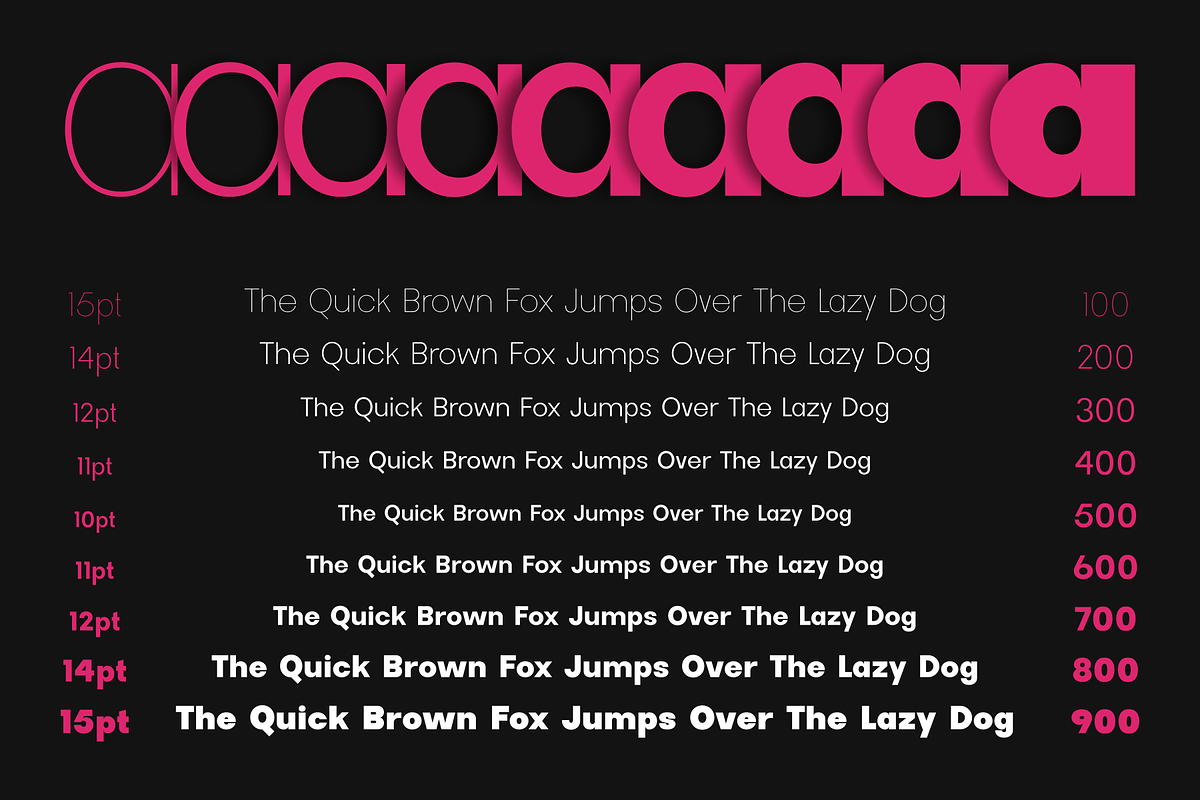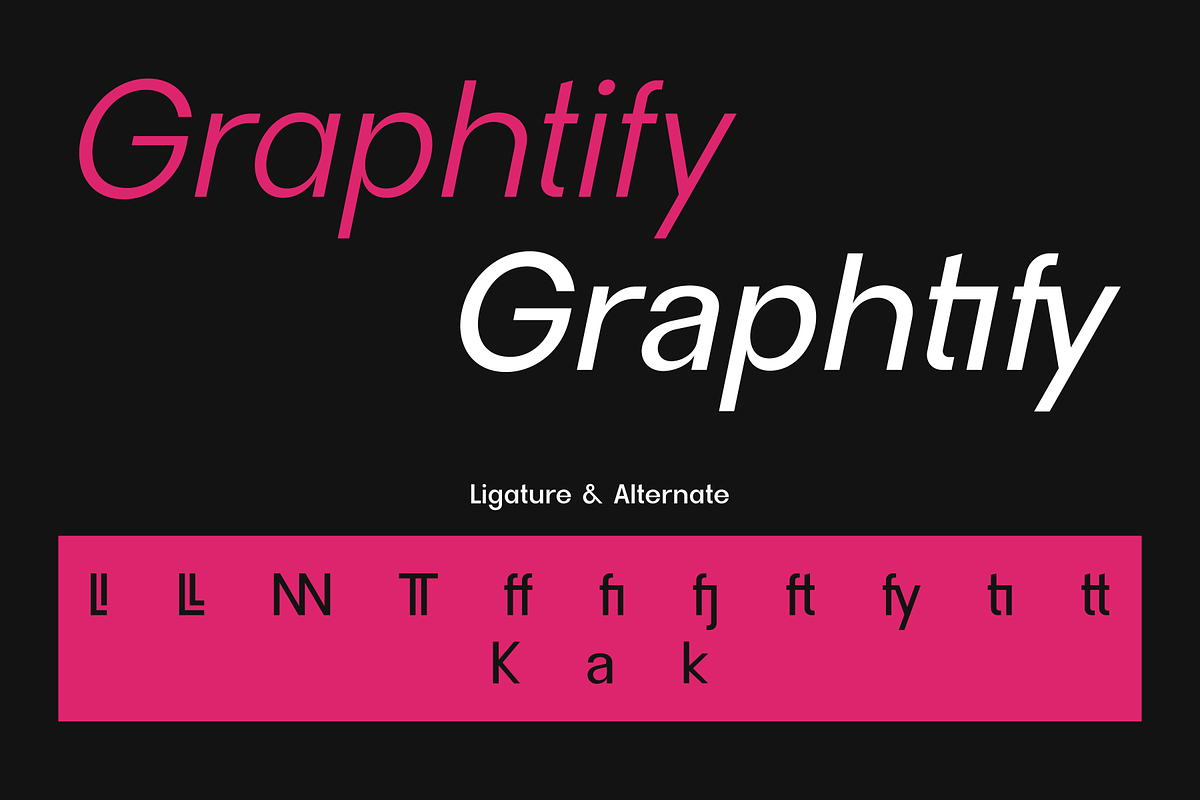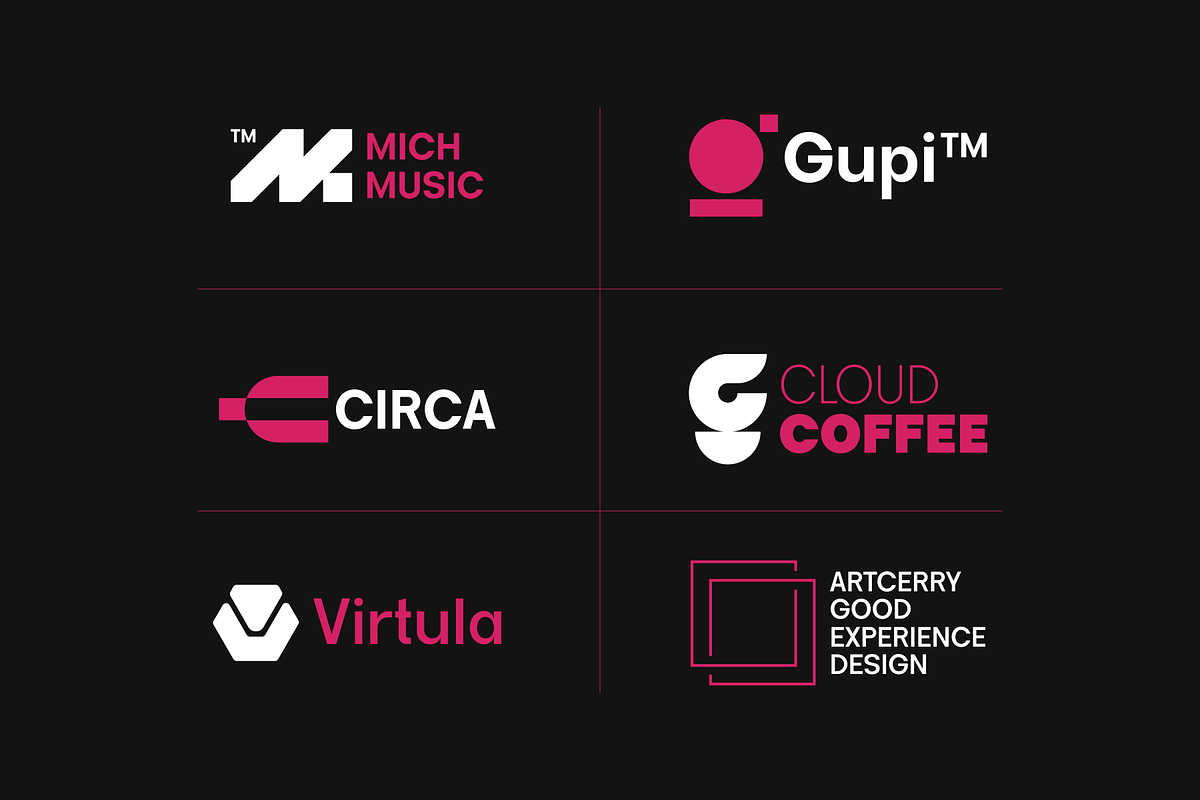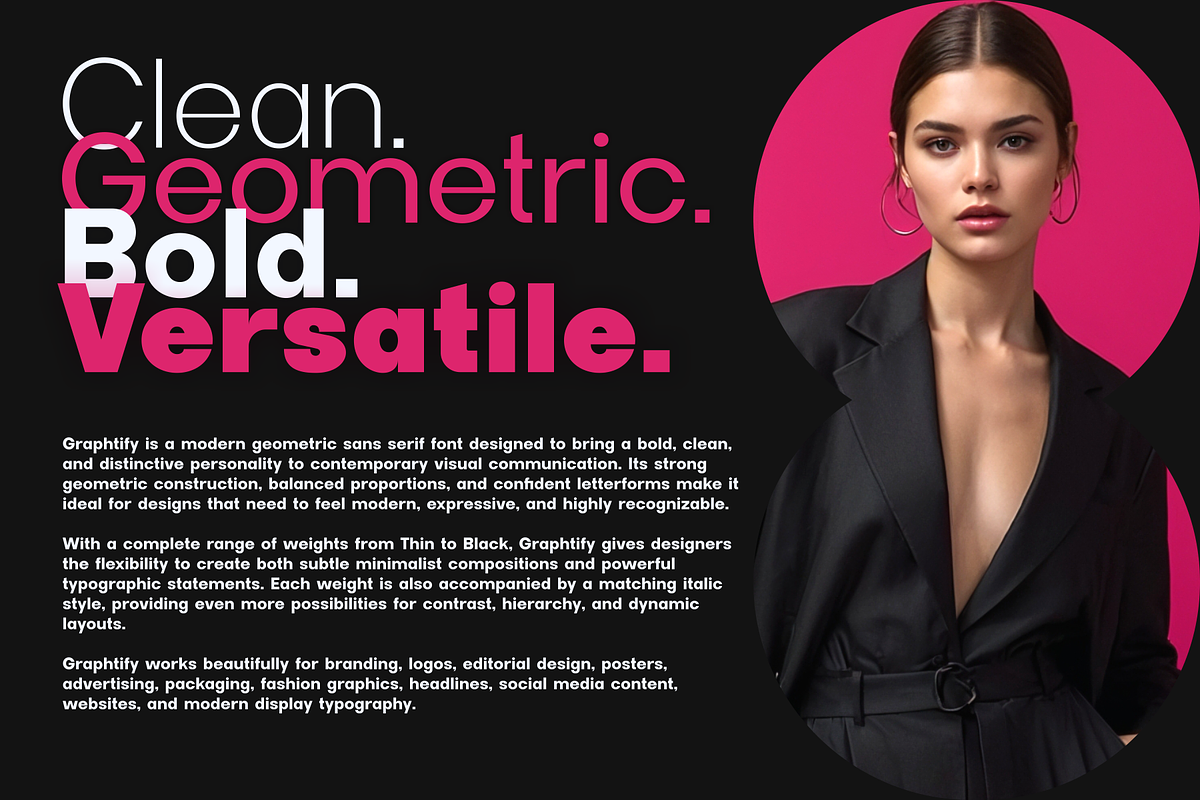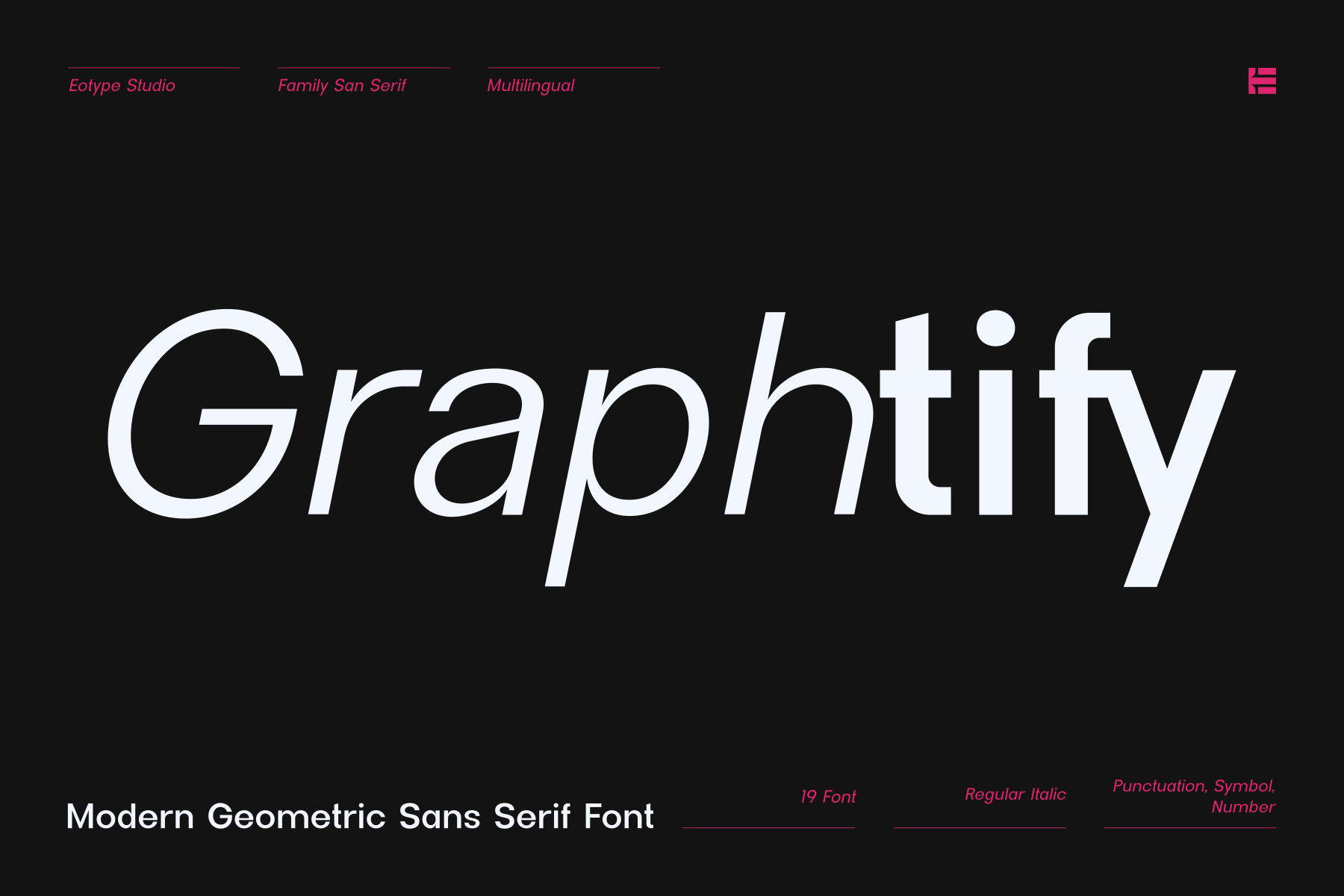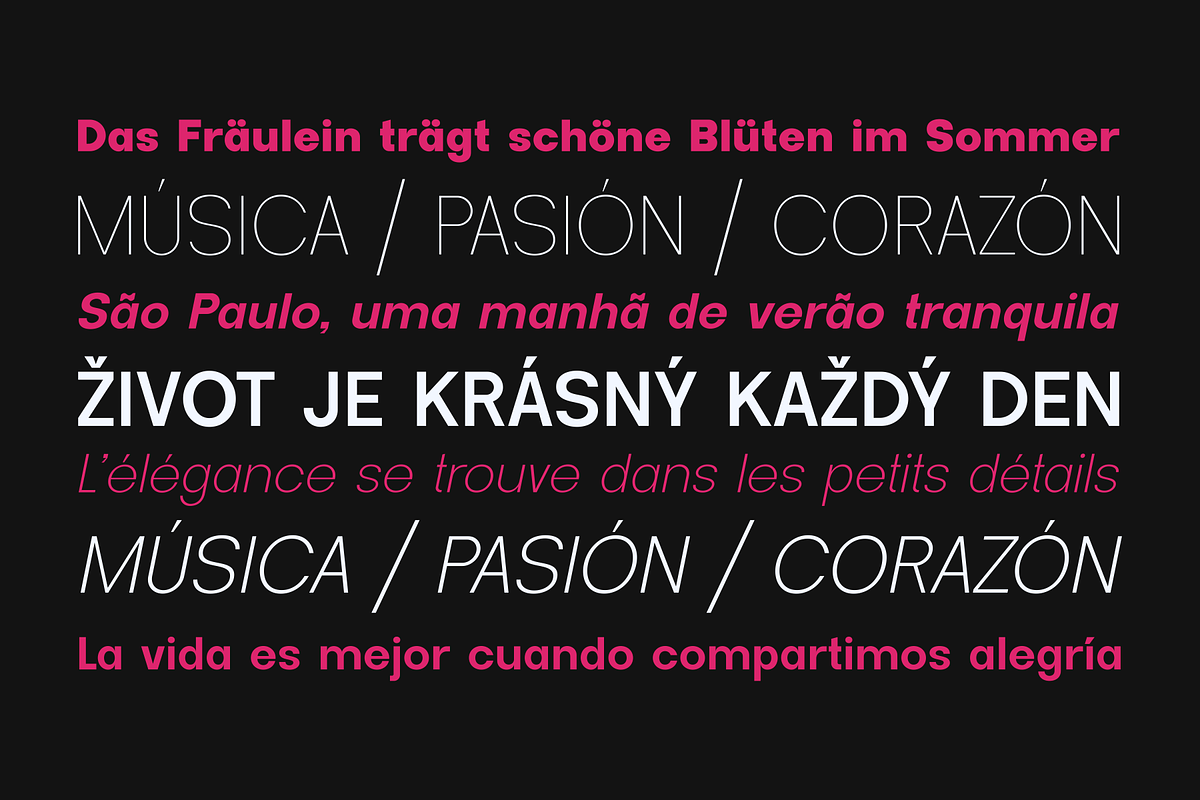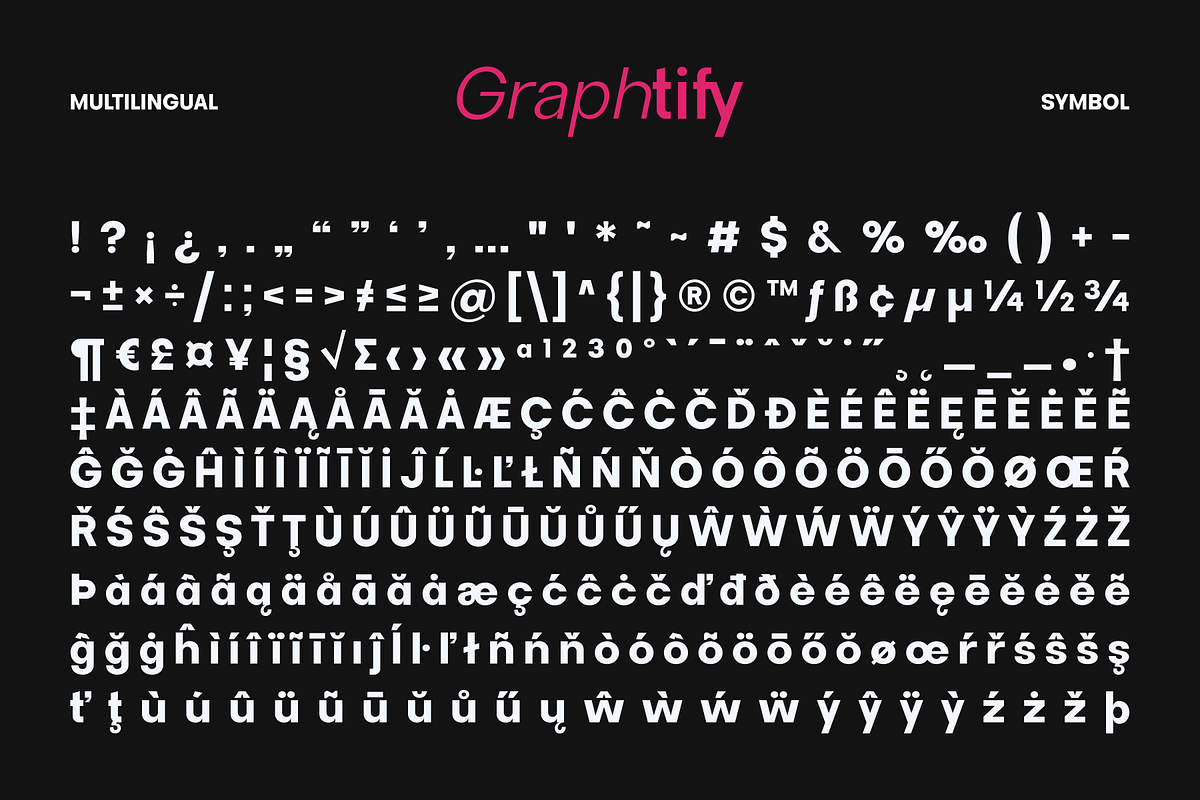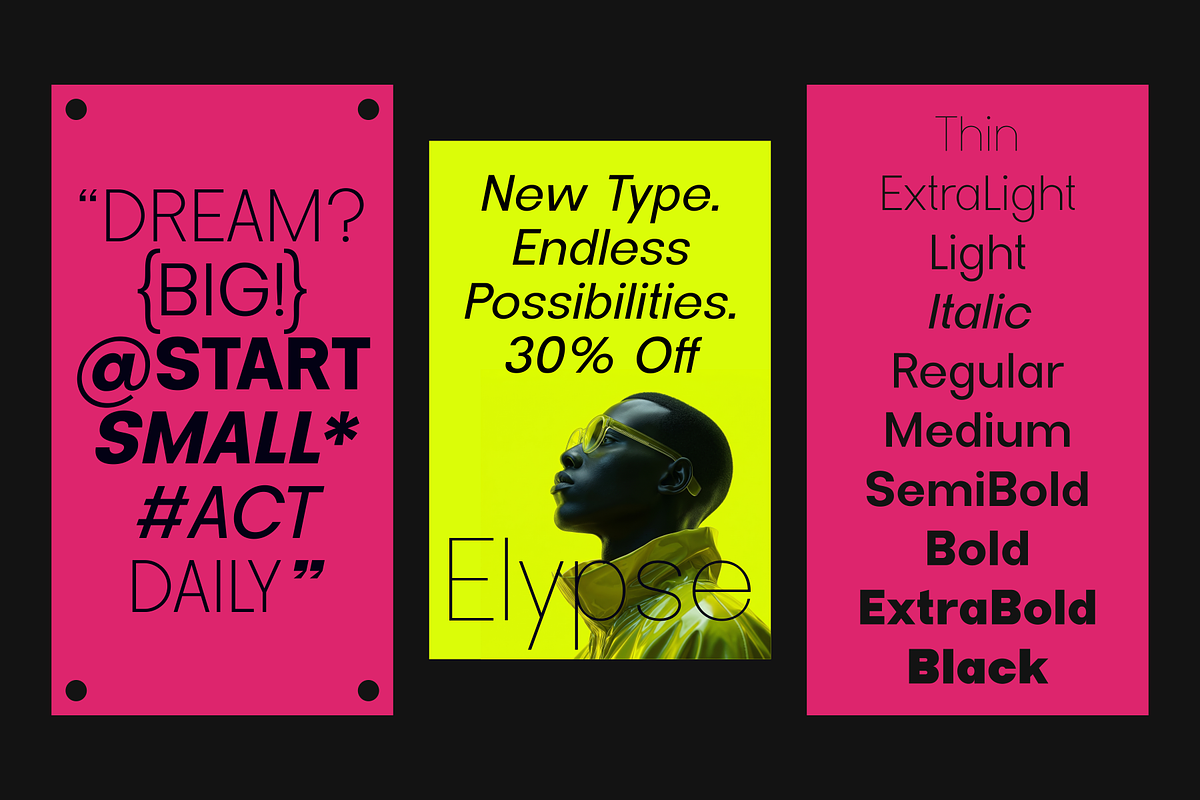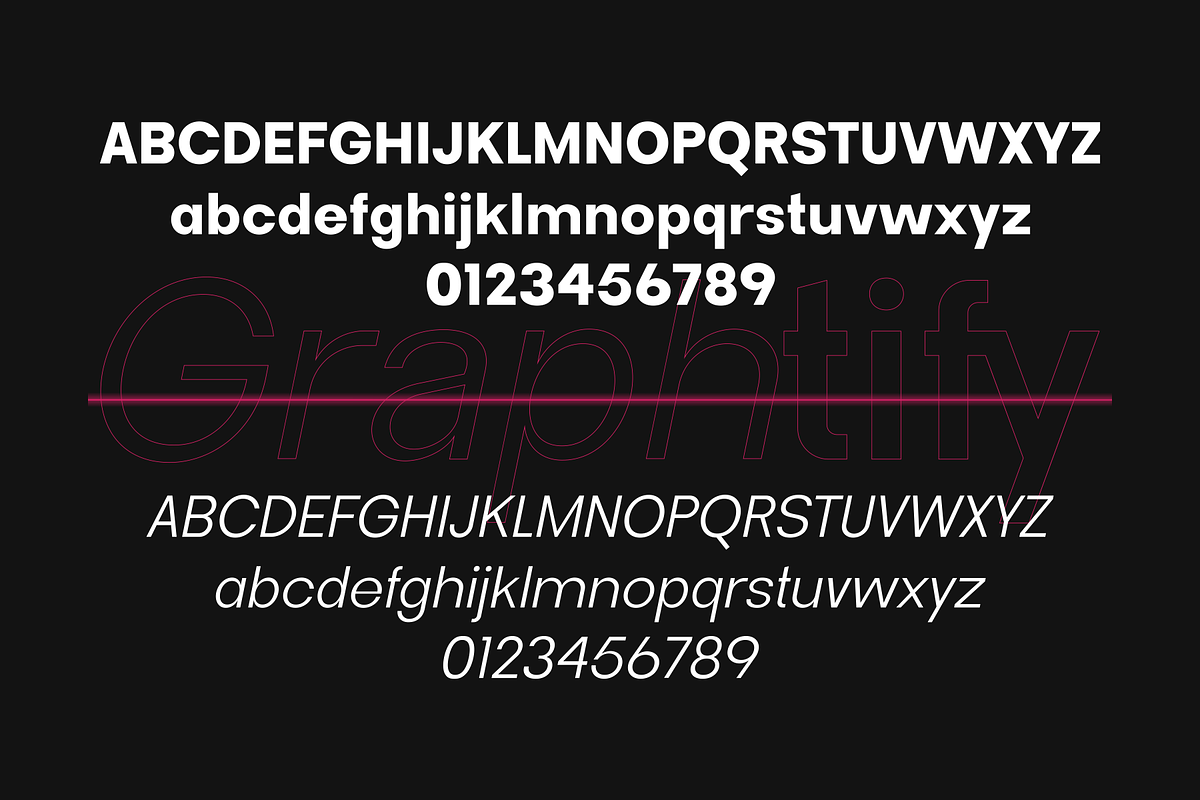
Graphtify - Sans Serif Family Font
Graphtify - Modern Geometric Sans Serif Family Font
Graphtify is a modern geometric sans serif font designed to bring a bold, clean, and distinctive personality to contemporary visual communication. Its strong geometric construction, balanced proportions, and confident letterforms make it ideal for designs that need to feel modern, expressive, and highly recognizable.
With a complete range of weights from Thin to Black, Graphtify gives designers the flexibility to create both subtle minimalist compositions and powerful typographic statements. Each weight is also accompanied by a matching italic style, providing even more possibilities for contrast, hierarchy, and dynamic layouts.
Graphtify works beautifully for branding, logos, editorial design, posters, advertising, packaging, fashion graphics, headlines, social media content, websites, and modern display typography.
Its heavier weights deliver a strong visual impact, while the lighter styles provide a refined and elegant appearance. The italic cuts can be used to add movement and emphasis, making Graphtify a versatile type family for both digital and print applications.
Graphtify Includes:
* 9 font weights from Thin to Black
* Matching Italic styles
* Modern geometric sans serif construction
* Clean and distinctive letterforms
* Strong display presence
* Multiple typographic weights for flexible hierarchy
* Suitable for branding, editorial, advertising, posters, packaging and digital design
Whether you're creating a bold brand identity, an editorial headline, a fashion campaign, or a contemporary poster, Graphtify is designed to give your typography a clean, modern, and confident voice.